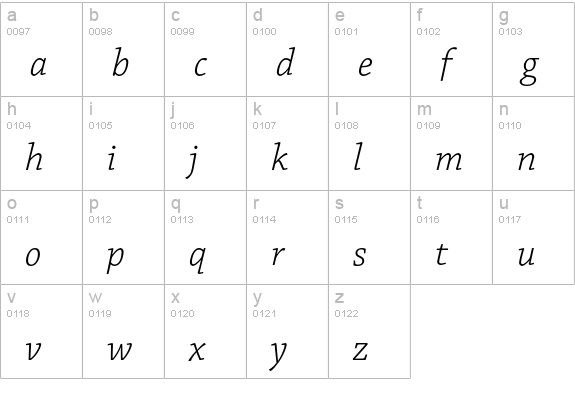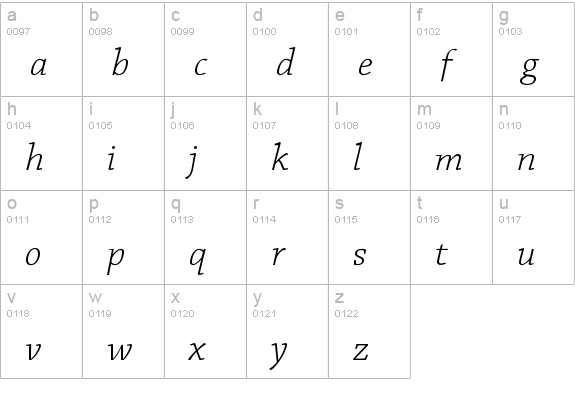
Chaparral Pro Light Italic Font Details
Chaparral Pro Light Italic is a refined, elegant, italic variant in the Chaparral typeface family \xE2\x80\x94 well suited to elegant body text, refined sub-headings, and luxury branding.
Chaparral Pro Light Italic is a graceful and sophisticated font that exudes elegance and style. Its slanted design adds a touch of flair to any text, making it perfect for adding emphasis or creating a sense of movement in your designs. The lightweight nature of the font gives it a delicate and airy feel, making it ideal for use in a variety of projects. One of the best things about Chaparral Pro Light Italic is that it is available for free download at FontsMarket.com. This means that you can easily access this beautiful font and use it in your personal or commercial projects without any cost. With its timeless appeal and modern twist, Chaparral Pro Light Italic is sure to elevate your designs and make them stand out.